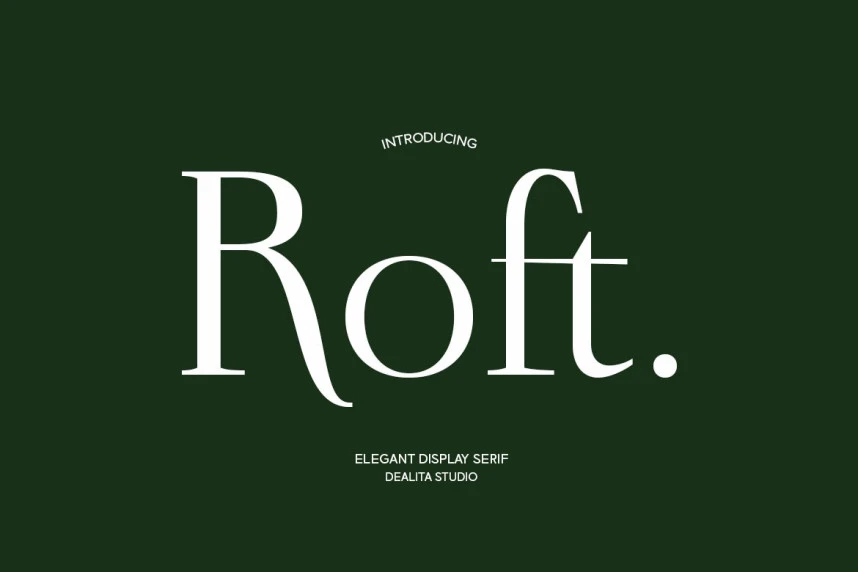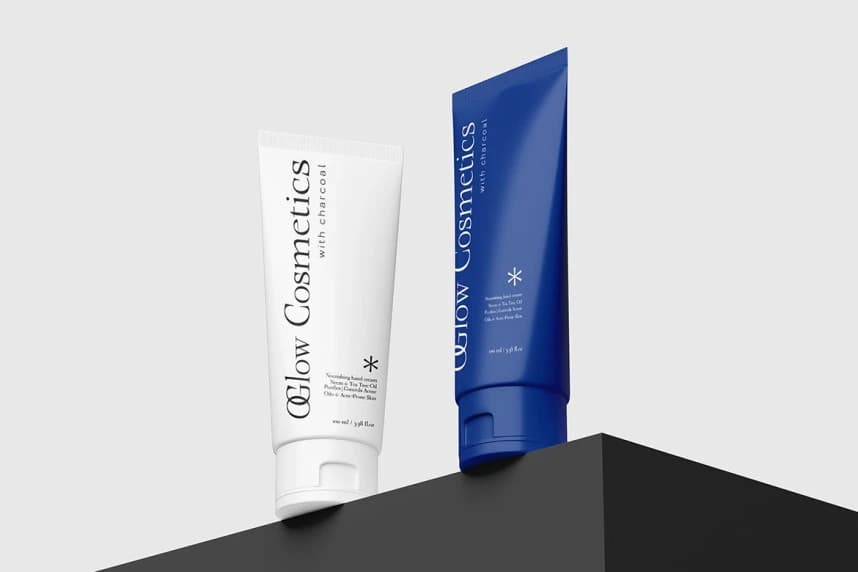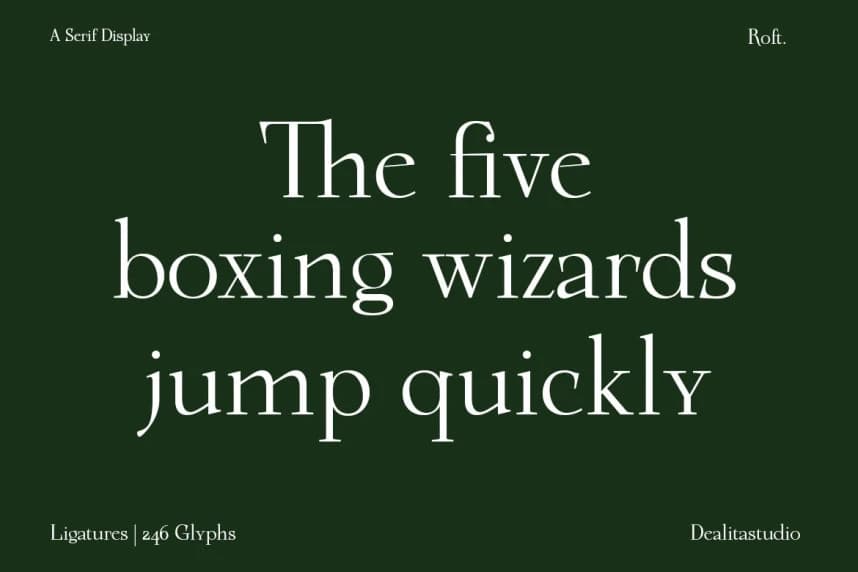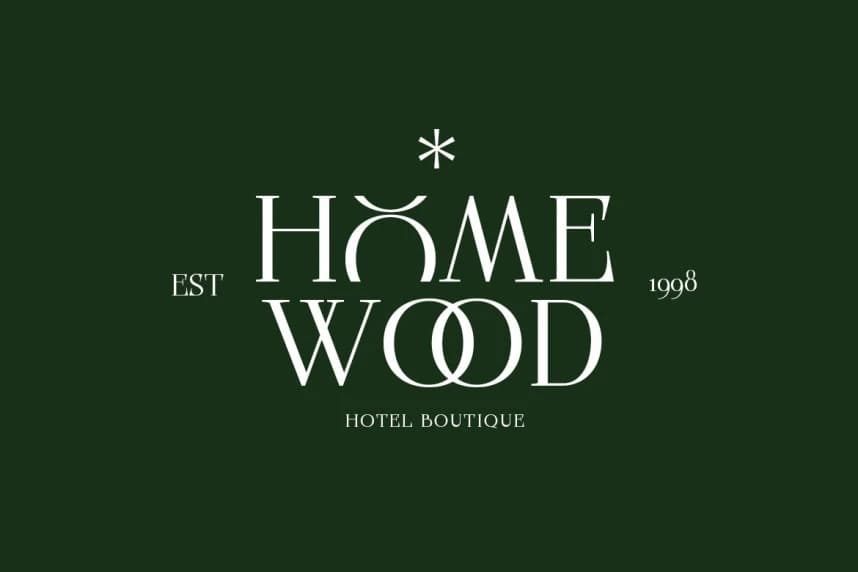
Roft Font
Roft Font is a minimalist modern serif font that combines clean lines with refined elegance. Its balanced proportions and subtle contrast create a sophisticated, professional look suitable for contemporary design.